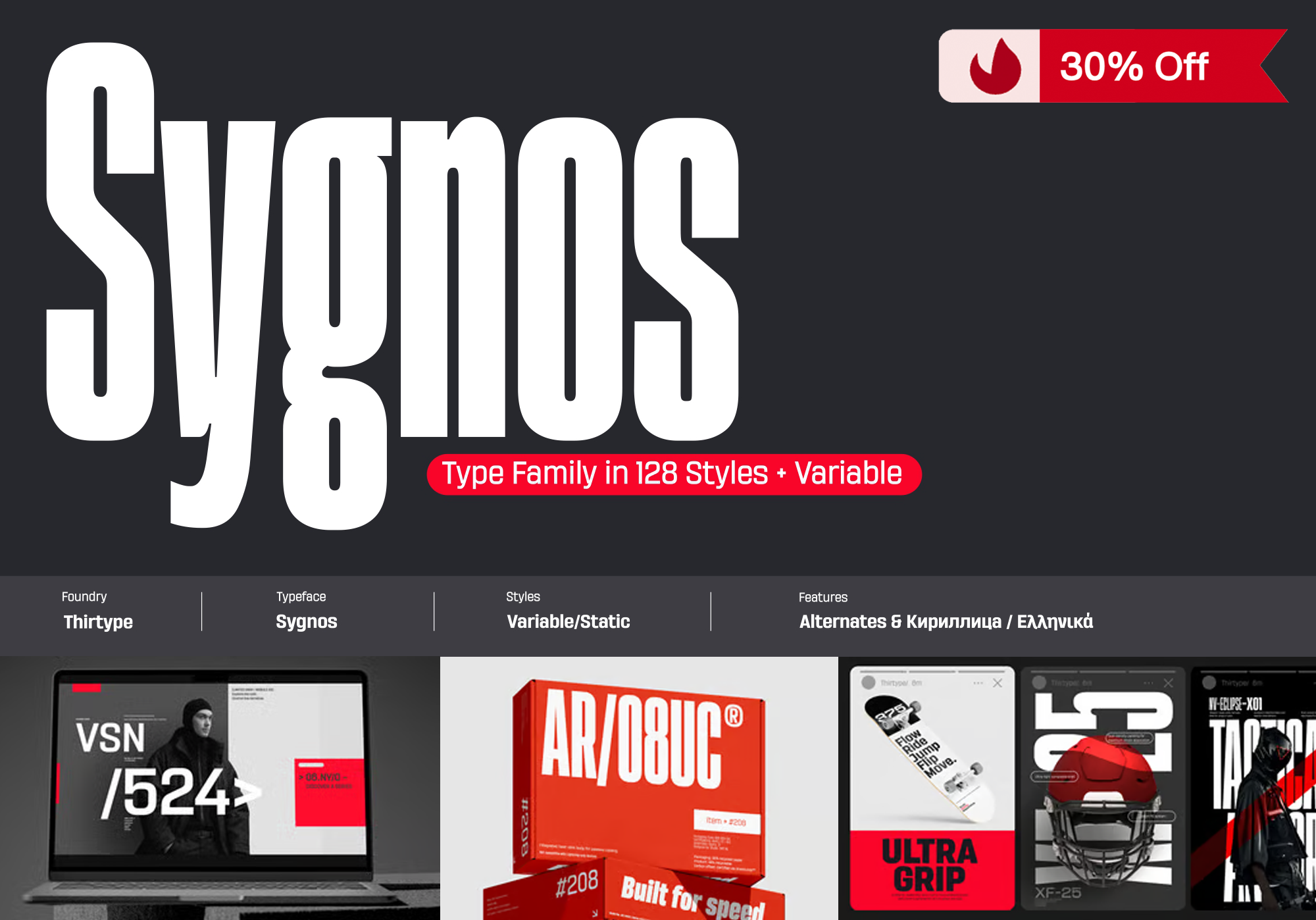
Elevate your creative projects with Sygnos, the ultimate display sans-serif that redefines versatility and modernity. Imagine a typeface that offers an astounding 128 static styles along with 2 variable fonts—Sygnos is your comprehensive solution for both subtle and bold designs. Whether you need text settings that whisper or headlines that shout, Sygnos covers the spectrum with its broad range of weights from Thin to Black and widths from Compressed to Ultra Expanded.
Rooted in geometric precision yet bursting with dynamic character, Sygnos brings a contemporary yet timeless flair to any project. Perfectly suited for branding, editorial layouts, advertising, posters, and digital media, this is the tool every modern creative has been waiting for. Don't miss out on the opportunity to transform your work with this powerful all-in-one typeface.